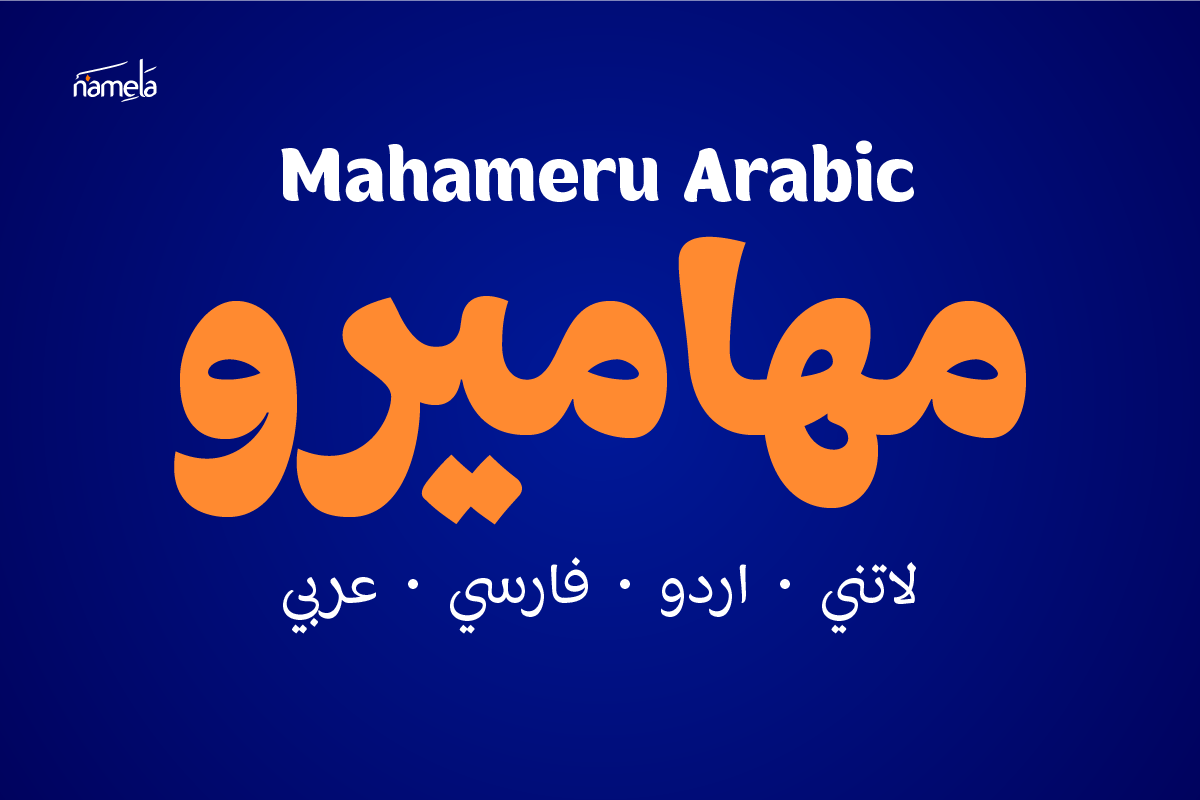
Mahameru Arabic Medium
Mahameru Arabic Font - A Modern Arabic Display Typeface for Branding & ePub When a brand needs to communicate in Arabic with the same authority it holds in Latin, choosing the right typeface becomes essential. Mahameru Arabic brings the monumental elegance of its Latin counterpart into Arabic typography, delivering a high-contrast, eye-catching display font designed for logos, branding, and ePub layouts that demand attention. Clean, proportional, and highly distinctive, it stands out as a power